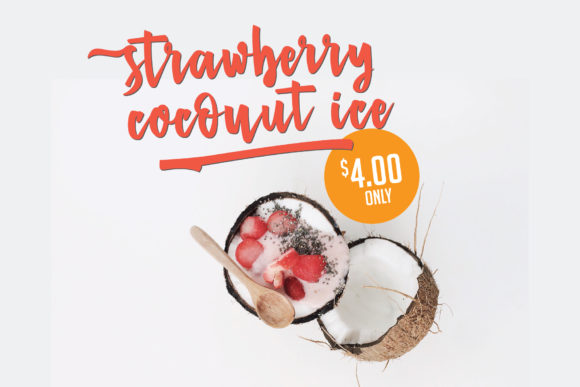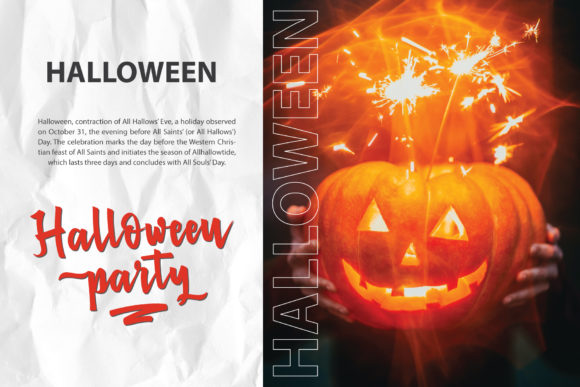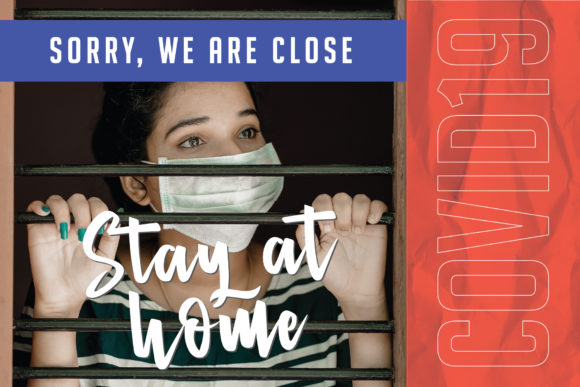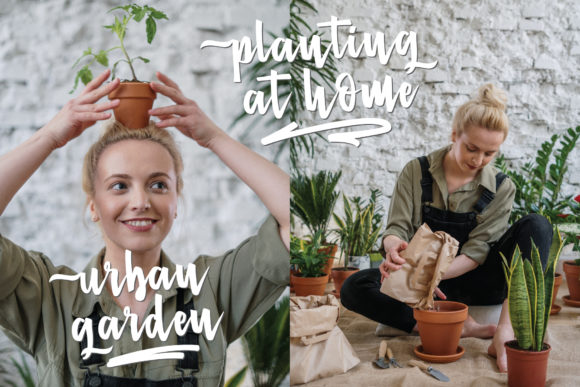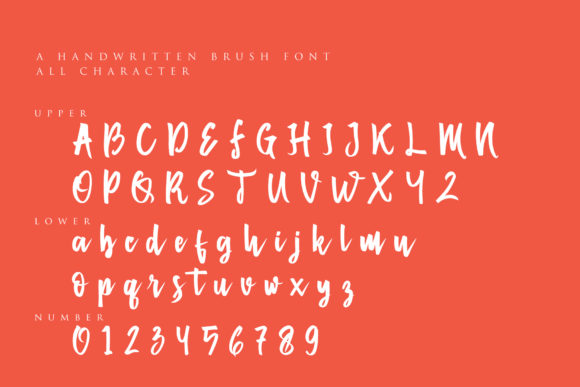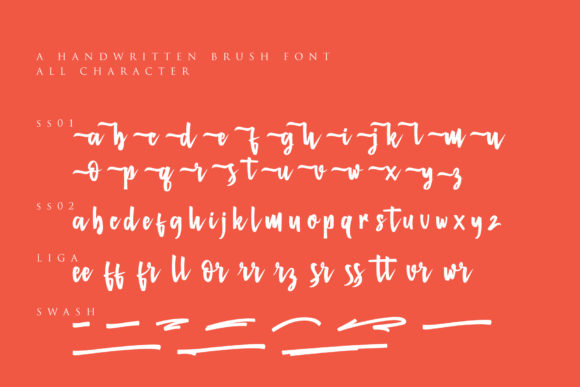
Busingen Am Hochrhein Font: A Handwritten Masterpiece for Your Designs
Are you tired of using the same old fonts in your designs? Look no further than Busingen Am Hochrhein, a beautiful and flowing handwritten font that is sure to take your creations to the next level. With its distinct and well-rounded letters, this font is a masterpiece that will make your designs stand out from the crowd.
The Characteristics of Busingen Am Hochrhein Font
Busingen Am Hochrhein is a handwritten font that exudes elegance and sophistication. Its unique and flowing style makes it perfect for a wide range of design applications, from wedding invitations and branding materials to social media graphics and more. The font’s well-rounded letters give it a friendly and approachable feel, making it ideal for designers who want to create a personal connection with their audience.
The Versatility of Busingen Am Hochrhein Font
One of the best things about Busingen Am Hochrhein is its incredible versatility. This font can be used in a variety of design contexts, from formal and professional to playful and whimsical. Whether you’re creating a logo, a brochure, or a social media post, Busingen Am Hochrhein is the perfect choice. Its flowing style and well-rounded letters make it easy to read and understand, even at small sizes.
Why Designers and Crafters Love Busingen Am Hochrhein Font
Designers and crafters love Busingen Am Hochrhein for many reasons. Here are just a few:
- Unique Style: Busingen Am Hochrhein has a unique and distinctive style that sets it apart from other fonts. Its flowing letters and well-rounded edges make it a standout in any design.
- Easy to Read: Despite its elegant and cursive style, Busingen Am Hochrhein is easy to read and understand, even at small sizes.
- Versatile: This font can be used in a wide range of design applications, from formal and professional to playful and whimsical.
- High-Quality: Busingen Am Hochrhein is a high-quality font that is designed to deliver exceptional results in any design.
How to Use Busingen Am Hochrhein Font in Your Designs
Using Busingen Am Hochrhein in your designs is easy. Here are a few tips to get you started:
- Pair it with Other Fonts: Busingen Am Hochrhein looks great when paired with other fonts. Try pairing it with a bold sans-serif font for a striking contrast.
- Use it for Headings and Titles: Busingen Am Hochrhein is perfect for headings and titles. Its flowing style and well-rounded letters make it easy to read and understand.
- Experiment with Colors: Busingen Am Hochrhein looks great in a variety of colors. Experiment with different colors and combinations to find the one that works best for your design.
Busingen Am Hochrhein is a beautiful and flowing handwritten font that is sure to take your designs to the next level. With its distinct and well-rounded letters, this font is a masterpiece that will make your designs stand out from the crowd. Whether you’re a designer, crafter, or DIY enthusiast, Busingen Am Hochrhein is the perfect choice for any design project. So why wait? Download Busingen Am Hochrhein today and start creating spectacular designs!
Key Features of Busingen Am Hochrhein Font
- Handwritten Font: Busingen Am Hochrhein is a beautiful handwritten font with a unique and flowing style.
- Distinct Letters: The font’s distinct and well-rounded letters make it easy to read and understand.
- Versatile: Busingen Am Hochrhein can be used in a wide range of design applications, from formal and professional to playful and whimsical.
- High-Quality: The font is designed to deliver exceptional results in any design.
Busingen Am Hochrhein is a must-have font for any designer or crafter looking to add a touch of elegance and sophistication to their designs. With its unique style, versatility, and high-quality design, this font is sure to become a favorite in your design arsenal.